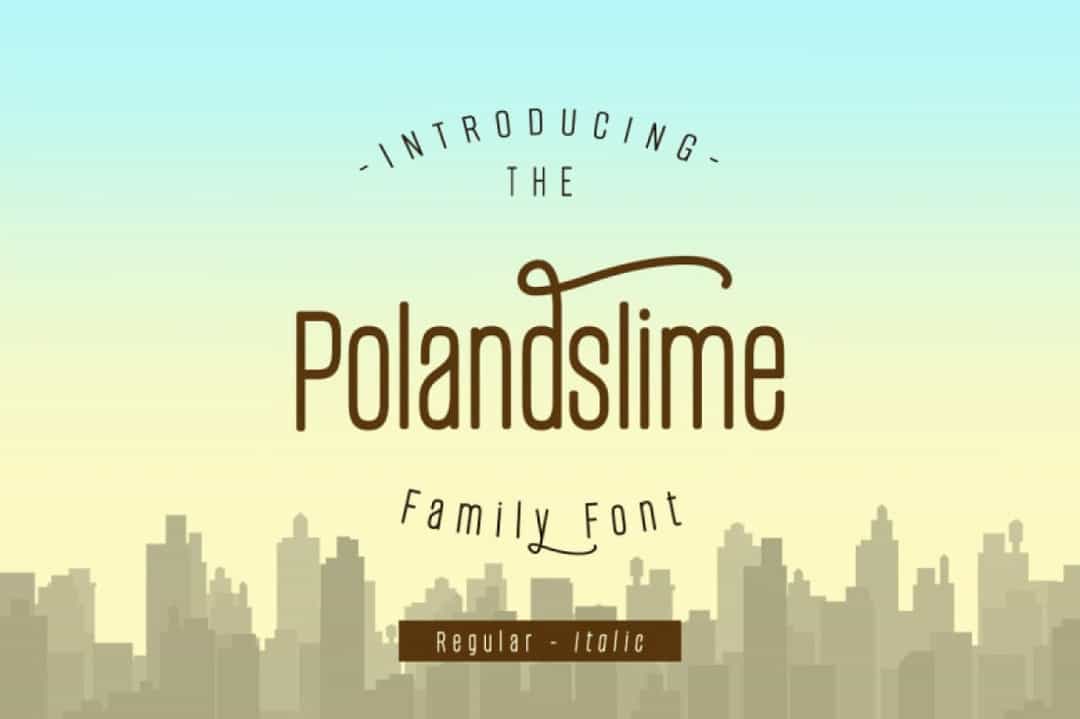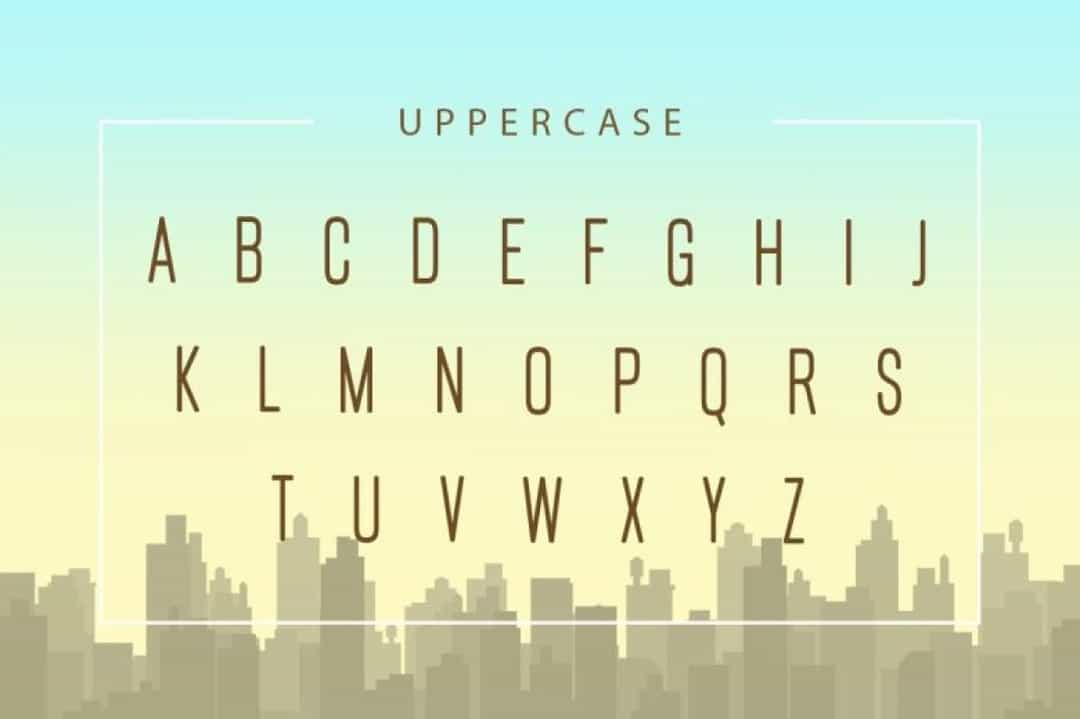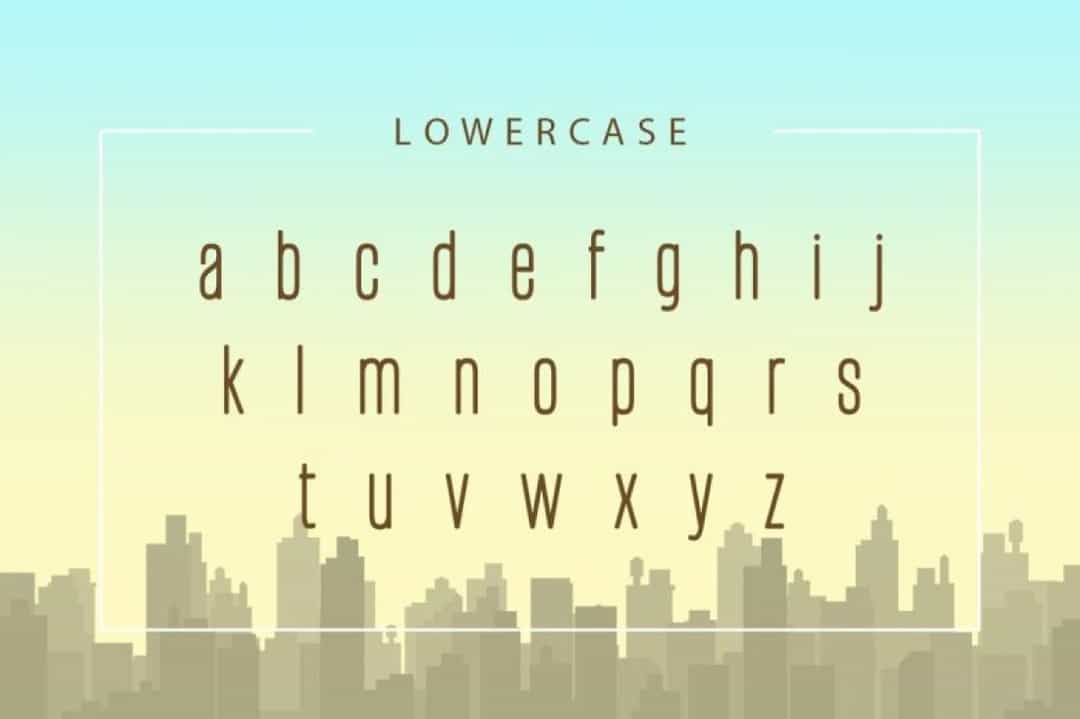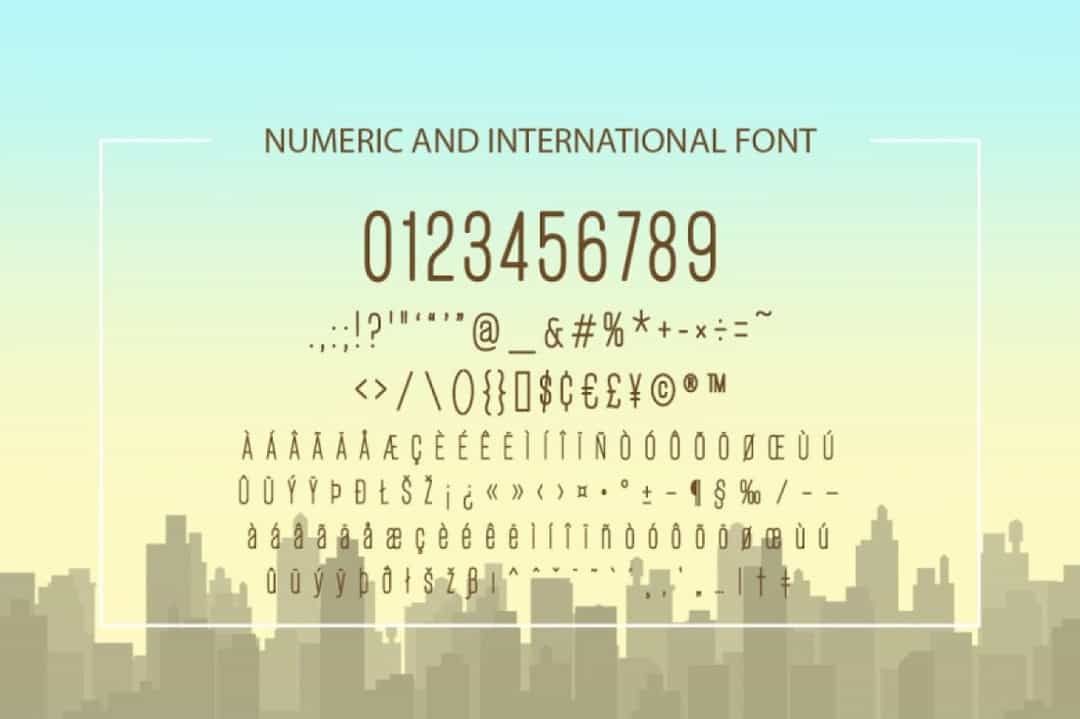
Discover Polandslime Font, part of the Sans Serif collection—a versatile and unique font perfect for adding a personal touch to your projects. Download it for free and enjoy crafting designs with style, from invitations to social media posts. This font is available exclusively for personal use, giving you the freedom to create without limits. Unlock your creativity with Polandslime Font today!
Polandslime Sans Serif Font is ideal for posters as logos or music covers, clothing designs and more creative projects. Polandslime Font features uppercase and lowercase characters as well as international and numeric fonts in regular as well as italic fonts – perfect for creative designs!